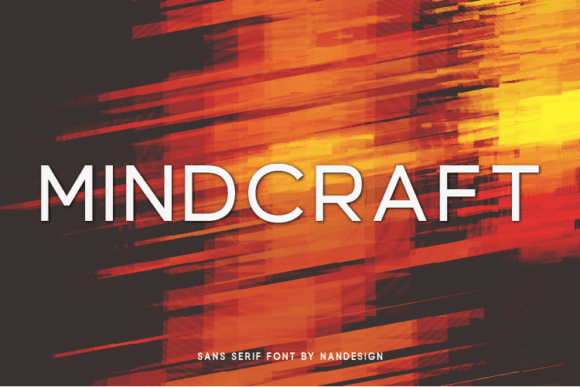
Introducing Mindcraft Font - Your Path to Creative Expression!
Unleash your creativity with Mindcraft, the captivating sans serif font that will revolutionize your designs. Designed by the renowned artist Nan Design, Mindcraft is an ode to artistry and innovation.
Imagine the endless possibilities with Mindcraft at your fingertips. Effortlessly elevate your headings, create captivating invitations, and design awe-inspiring logos that resonate with your audience. It's the perfect font to add a touch of elegance to your displays, headers, invitations, save-the-dates, and wedding creations.
With Mindcraft, you'll have the power to transform your words into visual masterpieces. The seamless flow of its strokes evokes a sense of sophistication and charm, leaving a lasting impression on your readers. Whether you're a seasoned designer or just starting your creative journey, Mindcraft is the perfect companion to bring your vision to life.
Embrace the festive spirit with Mindcraft, the Christmas Word Font!
Create enchanting greetings, design heartfelt holiday cards, and craft festive social media posts that capture the magic of the season. With Mindcraft, your Christmas creations will radiate warmth and joy, spreading cheer and goodwill to all.
With its remarkable versatility, Mindcraft has the power to transform any project into a work of art. Its captivating presence will elevate your blog posts, social media content, marketing materials, and branding initiatives. Experience the endless possibilities of Mindcraft, and let your creativity shine through!